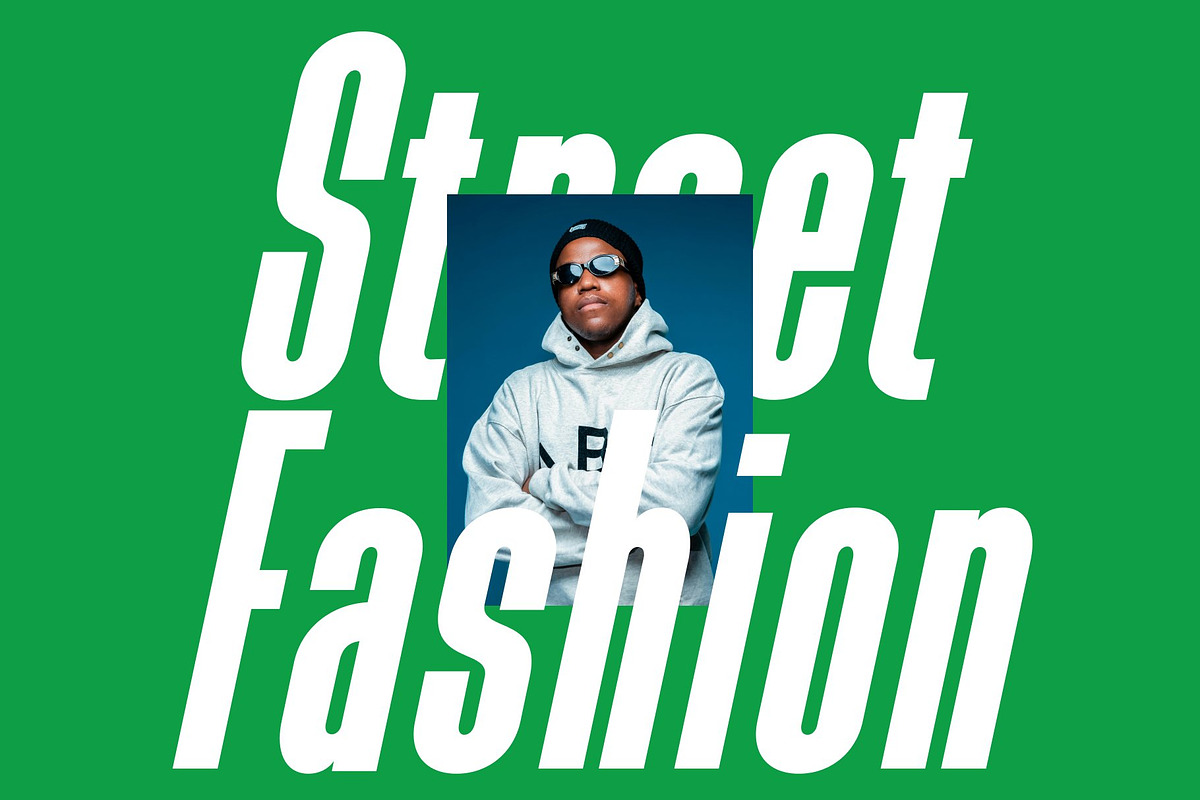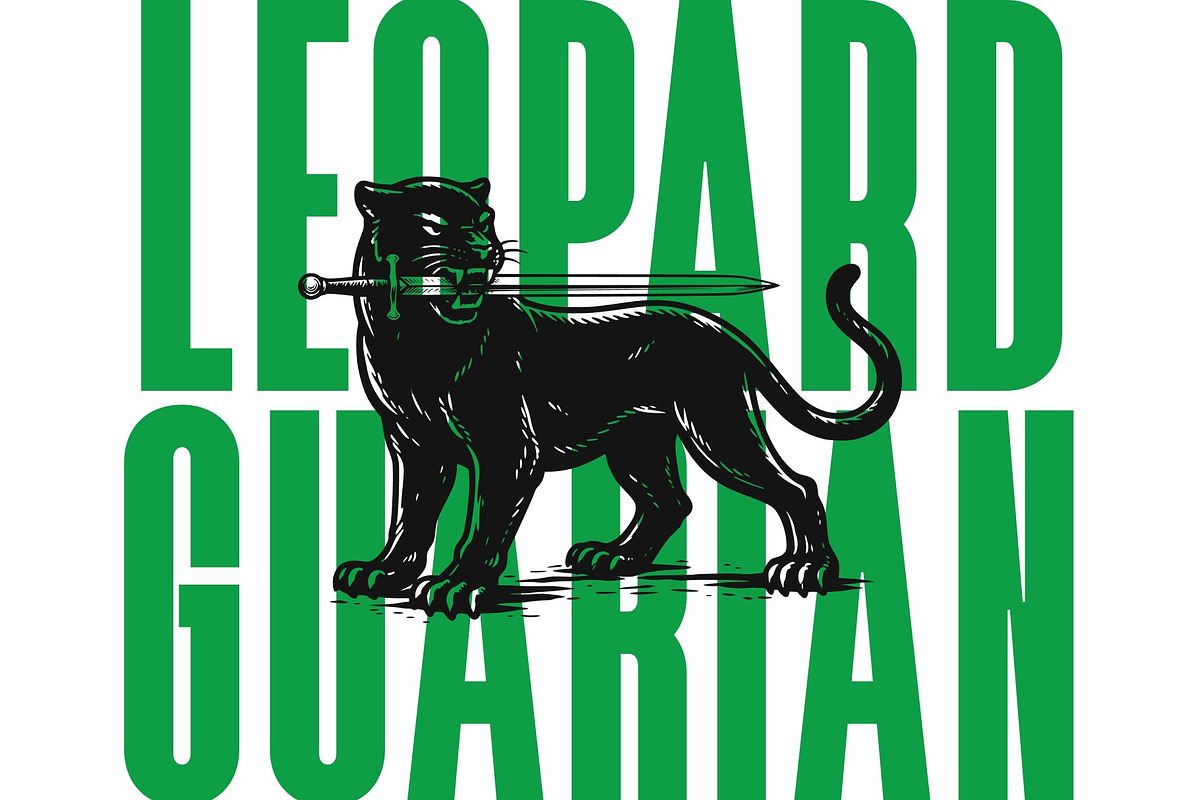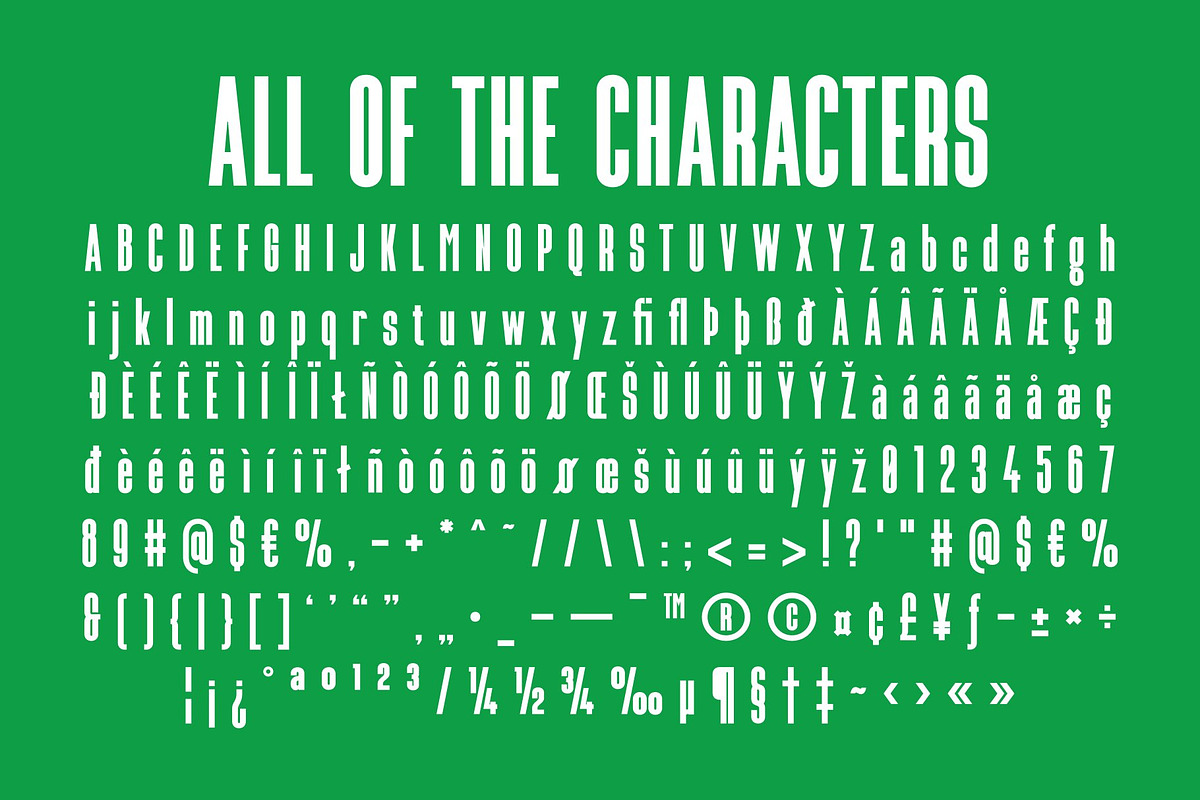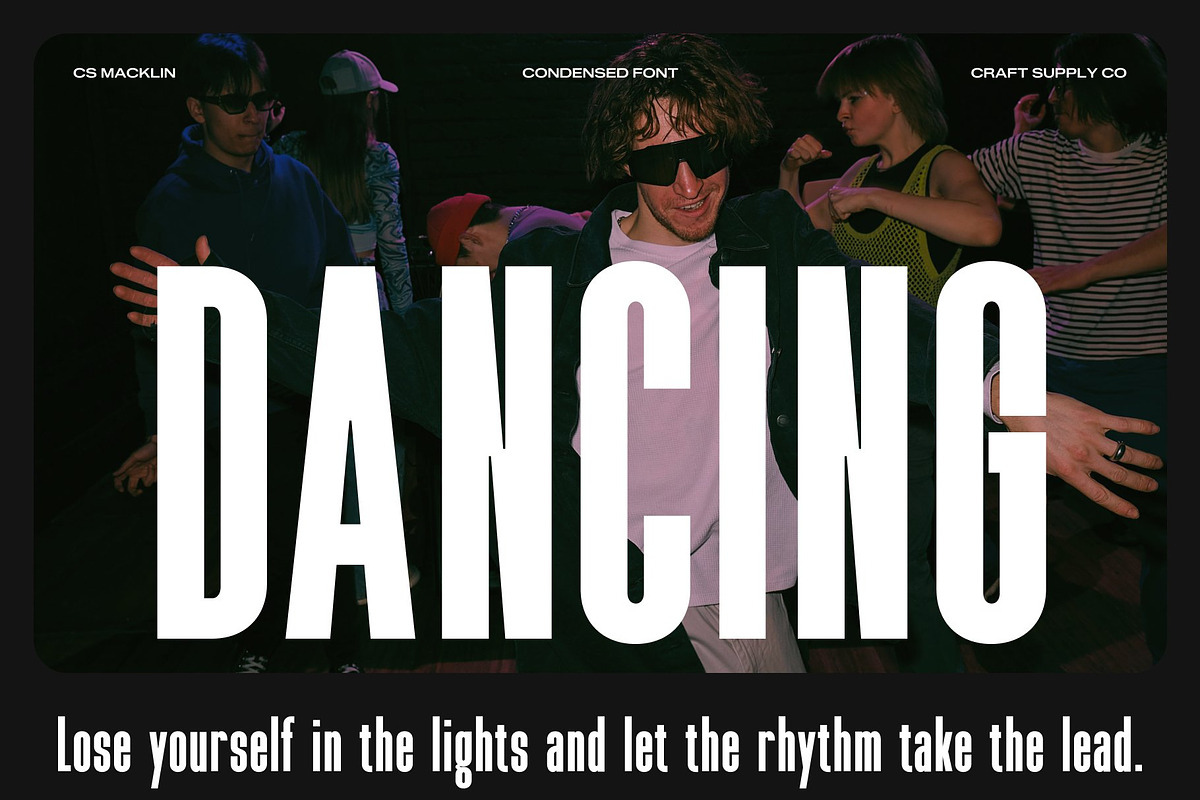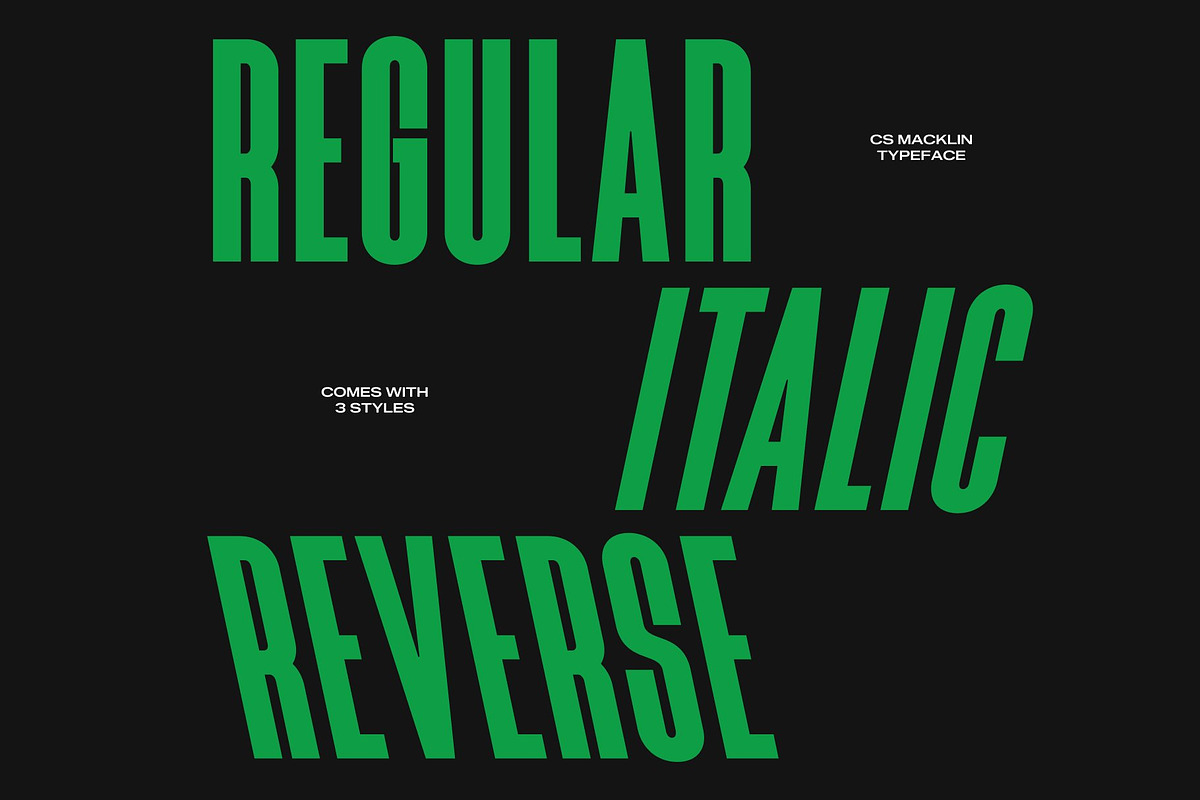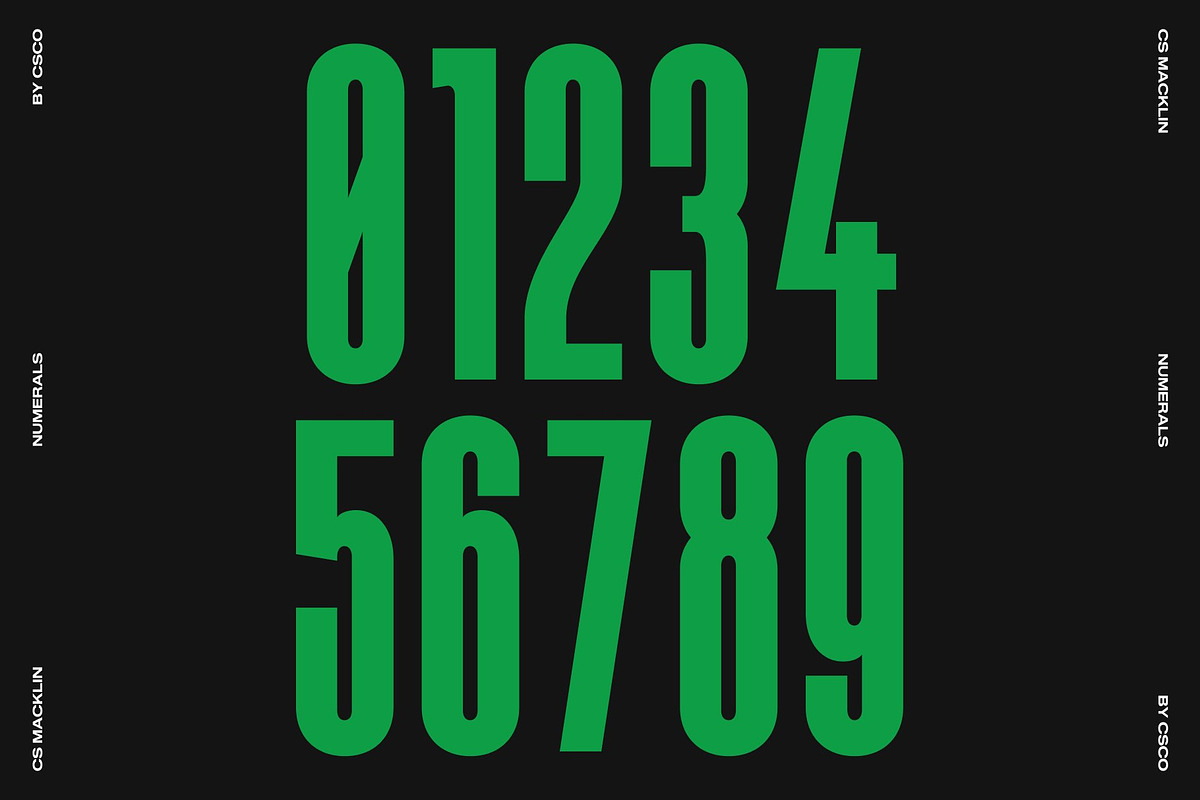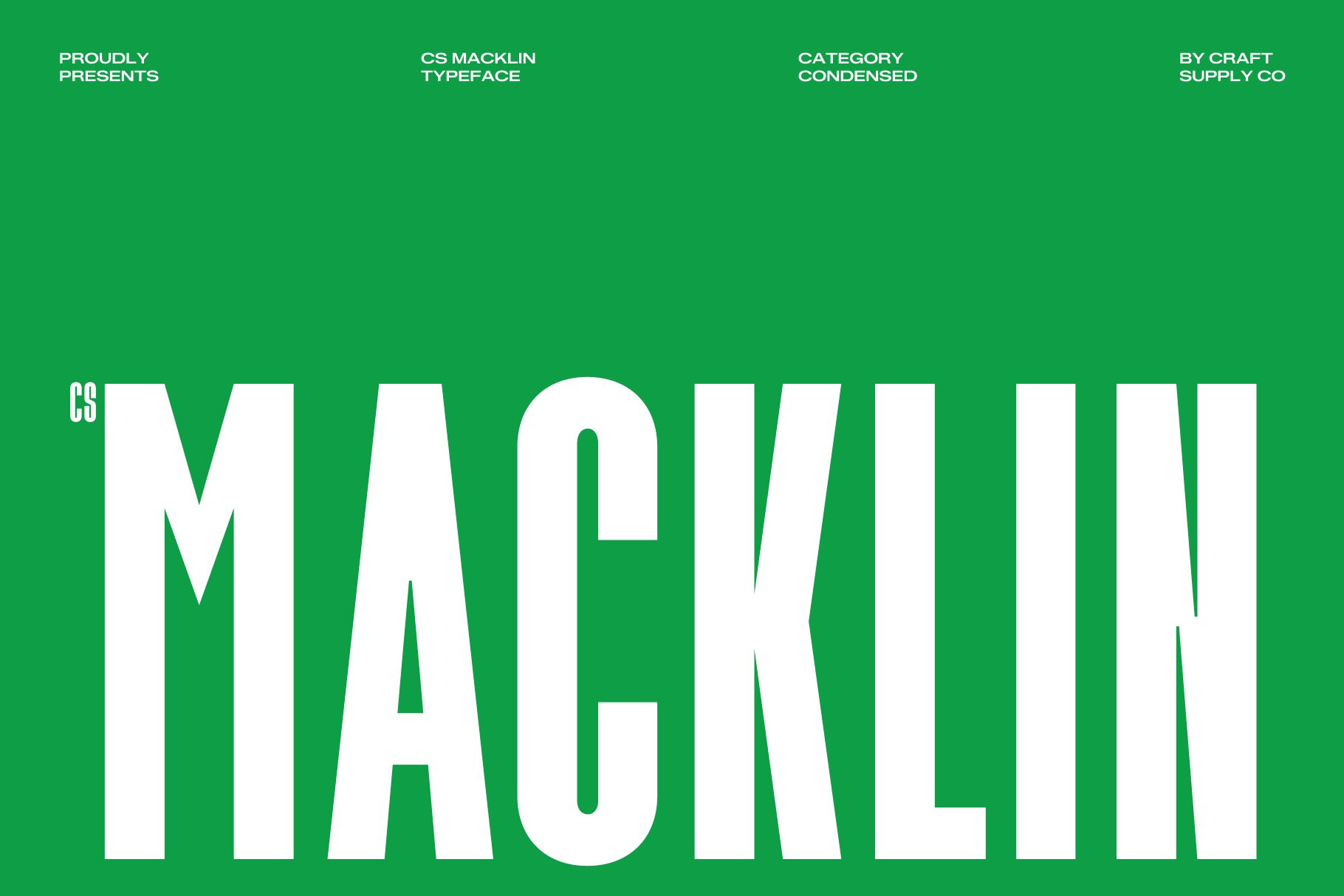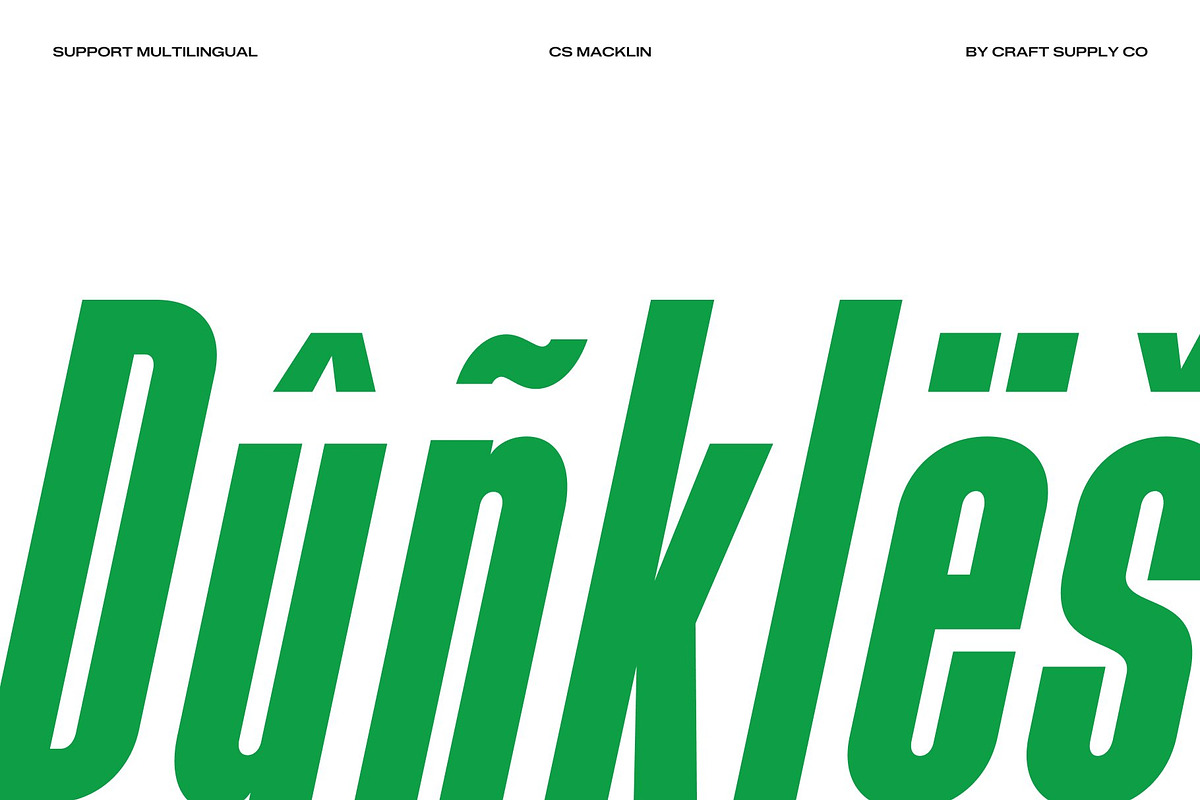
CS Macklin – Condensed Font
CS Macklin – Condensed Sans Serif with Modern Impact
Condensed Sans Serif with Strong Visual Efficiency This is a compact and modern condensed sans serif font designed to deliver powerful visual impact in tight spaces. With its streamlined proportions and confident structure, this typeface ensures maximum readability while maintaining a bold and contemporary presence. It is crafted for designers who need typography that feels strong, clean, and highly effective.
Built for Tight Layouts and Clear Communication The condensed form allows more content to fit seamlessly into narrow compositions without sacrificing clarity. Each letterform is carefully shaped to remain tall, balanced, and highly legible, making this font ideal for headlines, posters, and branding where space efficiency is essential. This structure keeps messaging strong and visually organized.
Bold Structure with Modern Simplicity This font combines clean geometry with bold strokes to create a confident and modern appearance. Its minimal yet powerful design ensures that text stands out clearly in both large-scale displays and compact layouts. The result is a typeface that feels direct, professional, and visually striking.
Perfect for Headlines, Posters, and Branding From impactful headlines and posters to branding and digital campaigns, this font adapts effortlessly across creative projects. Its combination of condensed efficiency, readability, and bold modern style ensures your typography delivers clarity, strength, and contemporary appeal.
CS Macklin Regular
CS Macklin Italic
CS Macklin Reverse Italic